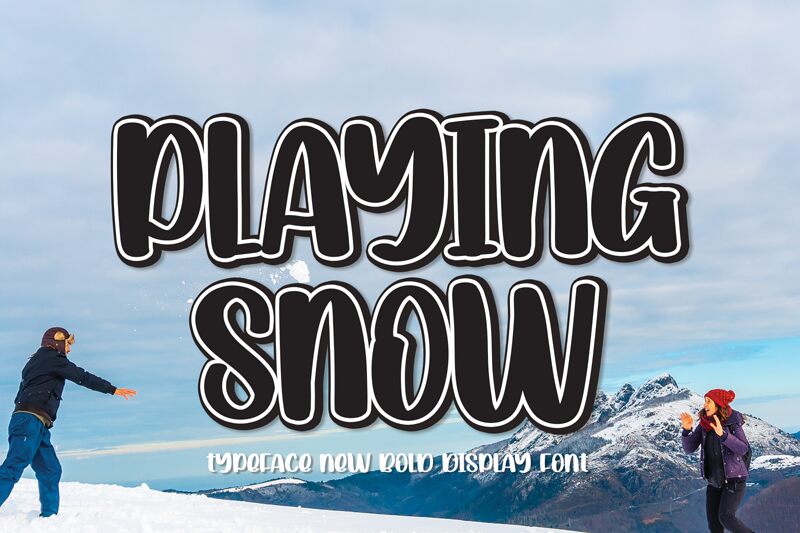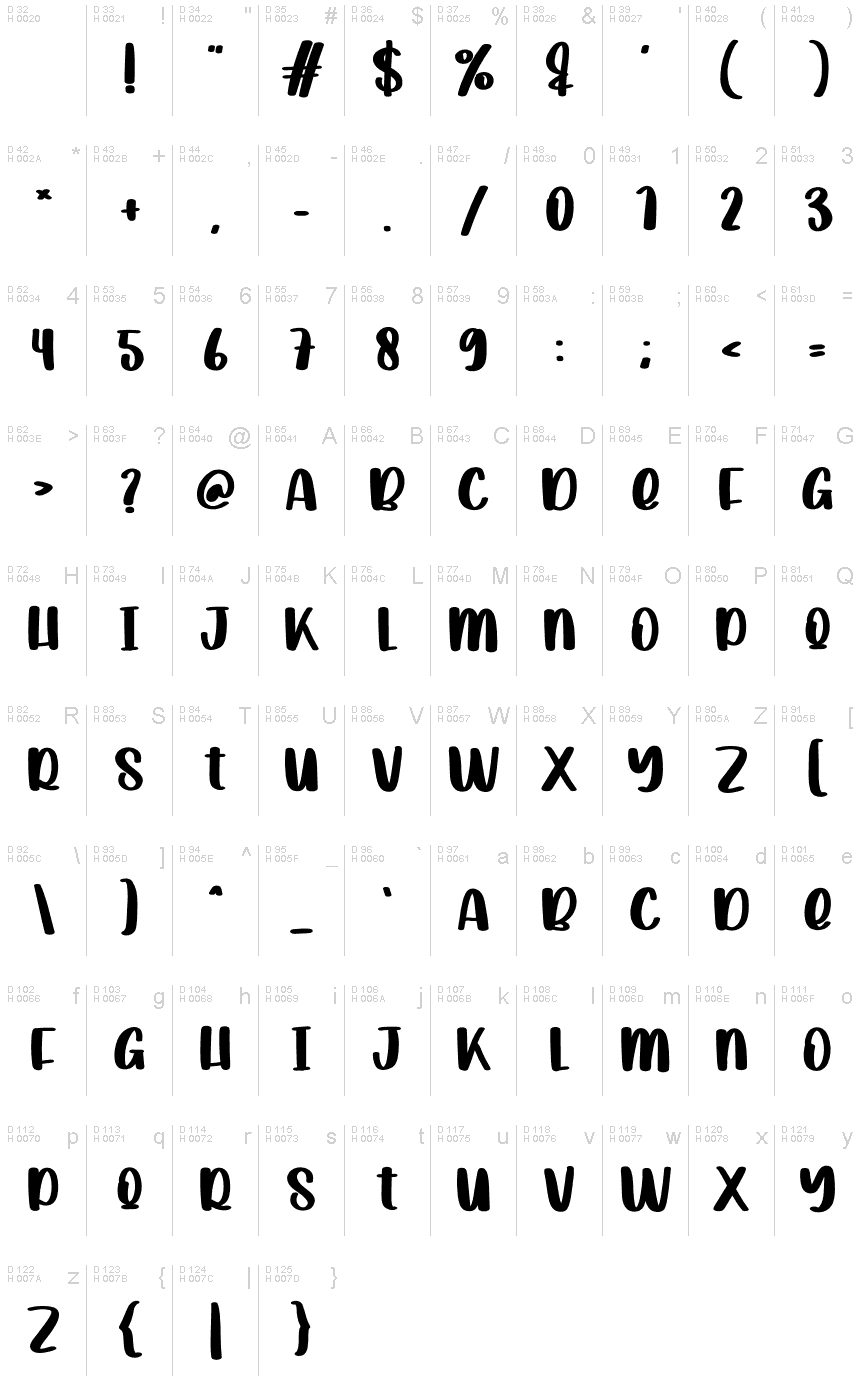
Playing Snow
Playing Snow by Scratchones embodies the whimsy and joy of a winter wonderland with its bold, handwritten style. The font's robust weight adds a touch of warmth to the playful curves and lines reminiscent of footsteps in fresh snow. Its charming irregularities capture the spirit of handmade artistry, making it ideal for projects that require a personal touch with an air of festivity.
The aesthetic appeal lies in its delightful imperfections, which evoke memories of carefree days spent frolicking in the snow. Playing Snow is perfectly suited for seasonal greetings, cozy café menus, or any creative endeavor that benefits from a dash of nostalgia and character. As a handwritten font with bold strokes, it stands out in large headers yet remains readable in shorter texts, ensuring versatility across various design landscapes.